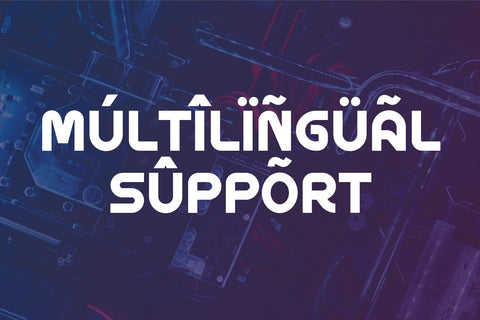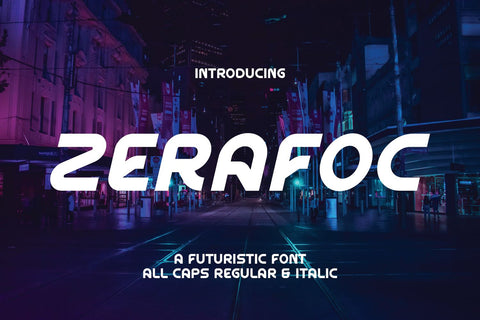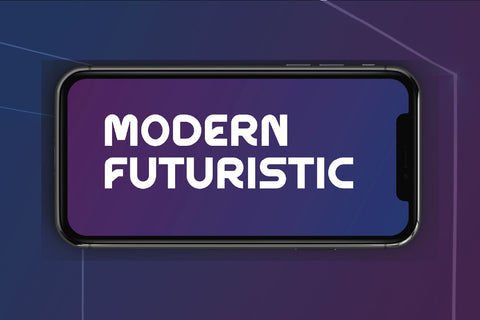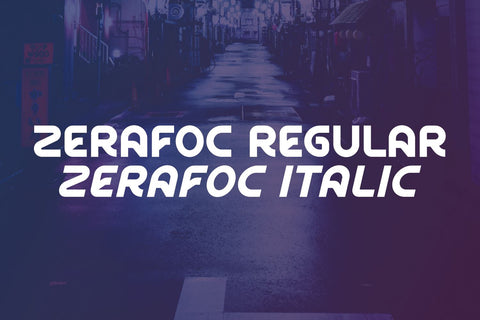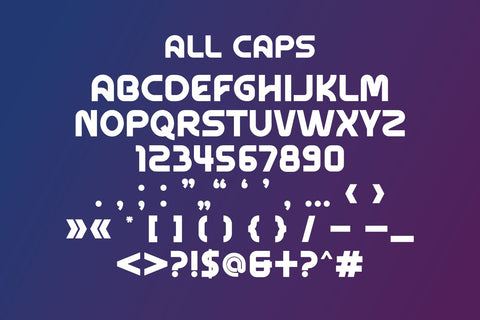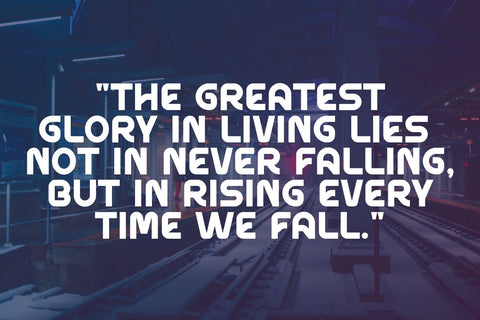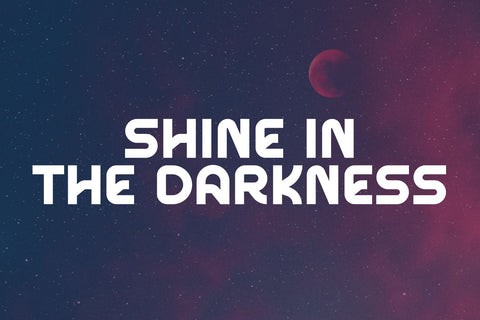
Zerafoc - Futuristic Font
Zerafoc is futuristic display font. Its elegant and cool look makes it the perfect choice for logos, branding, invitations, stationery, wedding designs, social media posts, and so much more.